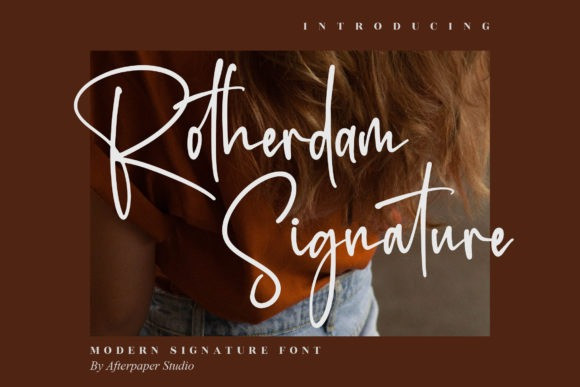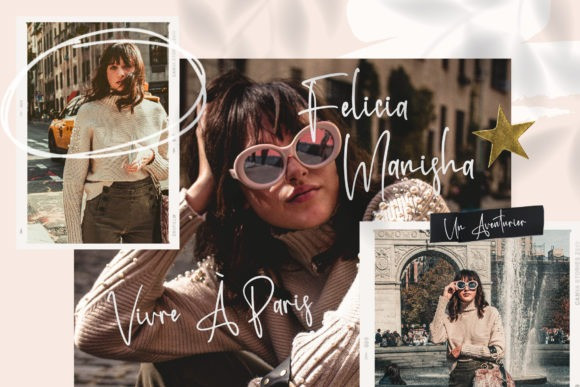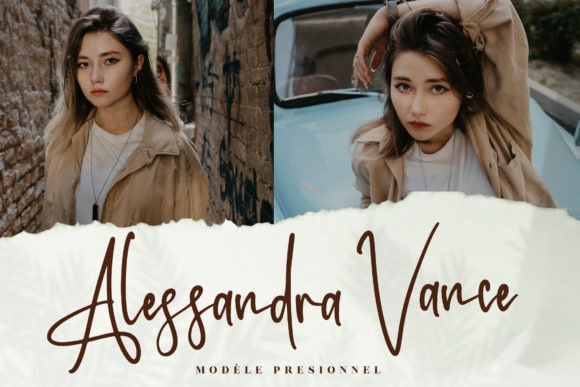
Rotherdam Signature Font
Rotherdam Signature is a lovely and timeless handwritten font. It is the best choice for creating eye catching logos, branding and quotes. Rotherdam Signature is PUA encoded which means you can access all of the glyphs and swashes with ease!